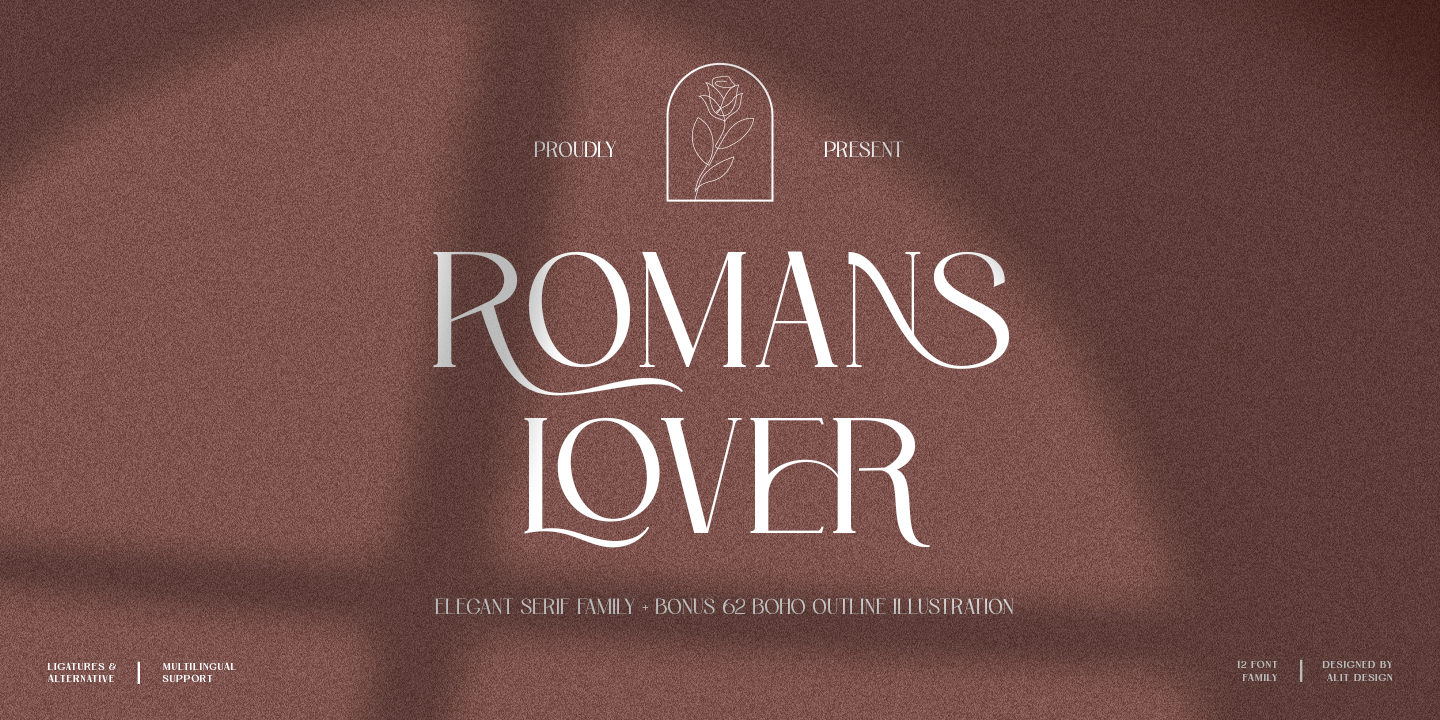
The Romans Lovers Font is incredibly versatile, making it a captivating choice for a wide array of design projects that aim to evoke a sense of ancient history, epic romance, or a dramatic, classical aesthetic. Imagine it gracing the covers of historical fiction novels, adding an authentic, timeless feel to movie titles set in antiquity, or bringing a majestic touch to branding for luxury goods with a storied heritage. It's also fantastic for crafting elegant wedding stationery with a classical twist, unique invitations for themed events, and impactful social media graphics that stand out with their rich character. Its inherent grandeur and intricate details make it perfect for any project striving to communicate passion, legend, and an enduring connection to the past.
What makes Romans Lovers Font so exciting is its unique ability to blend the monumental presence of classical Roman typography with a refined, sometimes decorative, flair that speaks of romance and artistry. It often features strong, authoritative letterforms combined with subtle serifs or flourishes that hint at tales of love and glory from bygone eras. This font doesn't just display text; it weaves a narrative, making your message feel important, legendary, and deeply resonant with historical significance. Its balance of robust structure and delicate detail ensures that your designs are not only powerful but also imbued with an undeniable sense of beauty and emotional depth. It's a typeface that brings an atmosphere of epic romance and classical grandeur to your typography, guaranteeing your projects leave a commanding and unforgettable impression.
The Romans Lovers Font family typically includes a range of weights and stylistic alternatives to provide extensive creative flexibility. While specific options can differ, you can generally expect to find alternatives like Regular, Bold, and potentially an Italic or a set of decorative alternates with ligatures that enhance its classical appeal. These different weights and stylistic sets allow you to create dynamic visual hierarchies and add nuanced artistic flair to your typography, ensuring a cohesive and powerfully crafted design. This comprehensive family support ensures that whether you need a strong, imposing headline or a detailed, romantic accent, Romans Lovers Font Free Download offers the perfect elements to bring your grand vision to life.